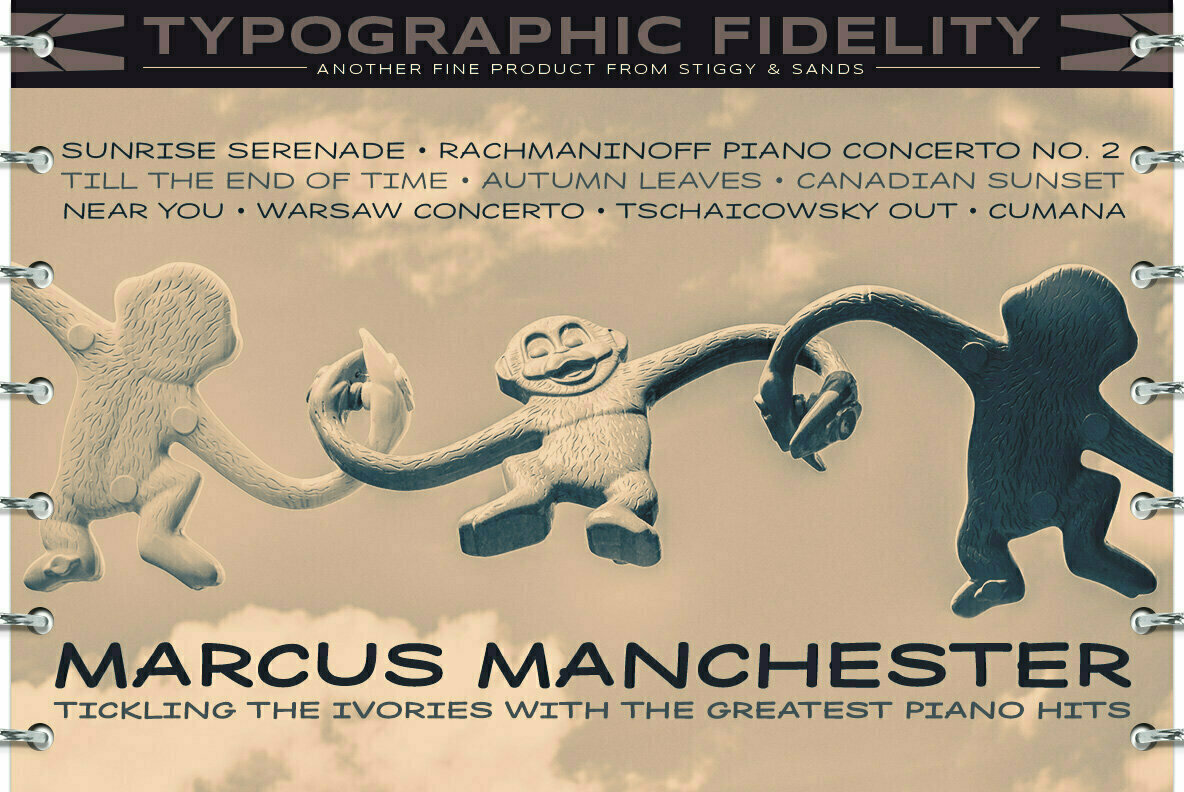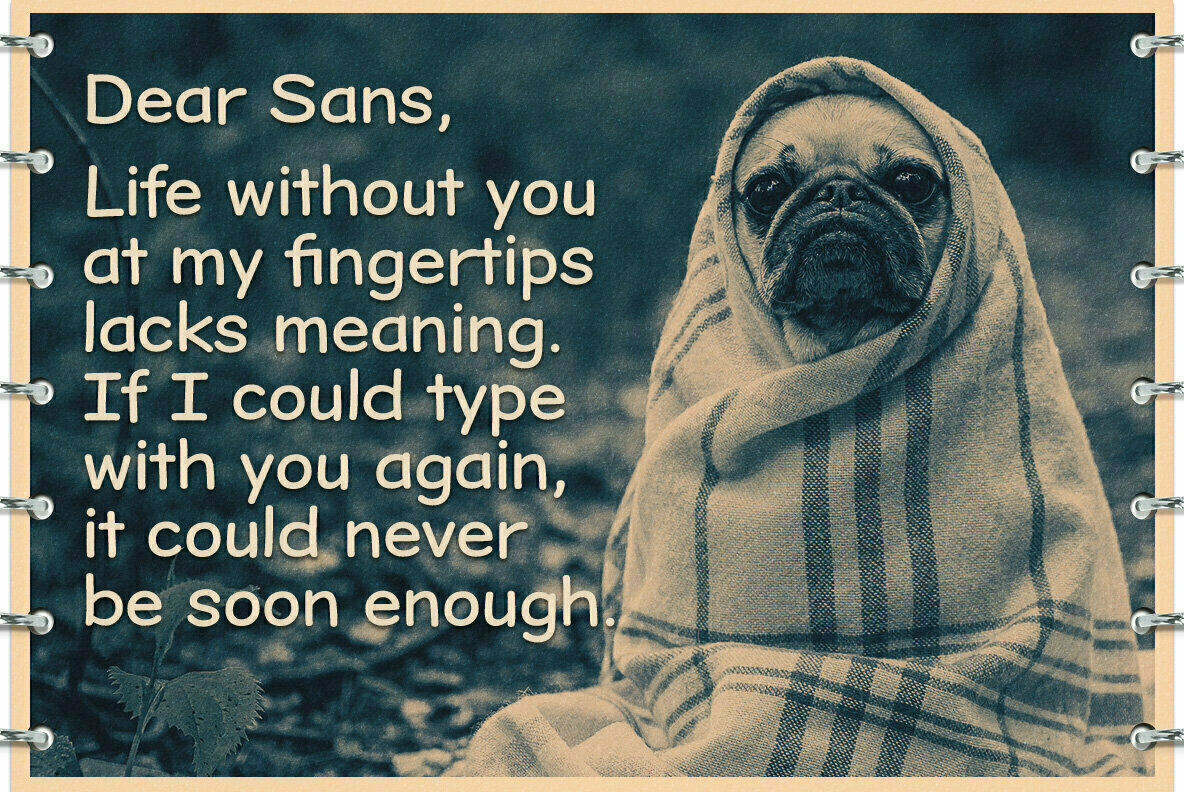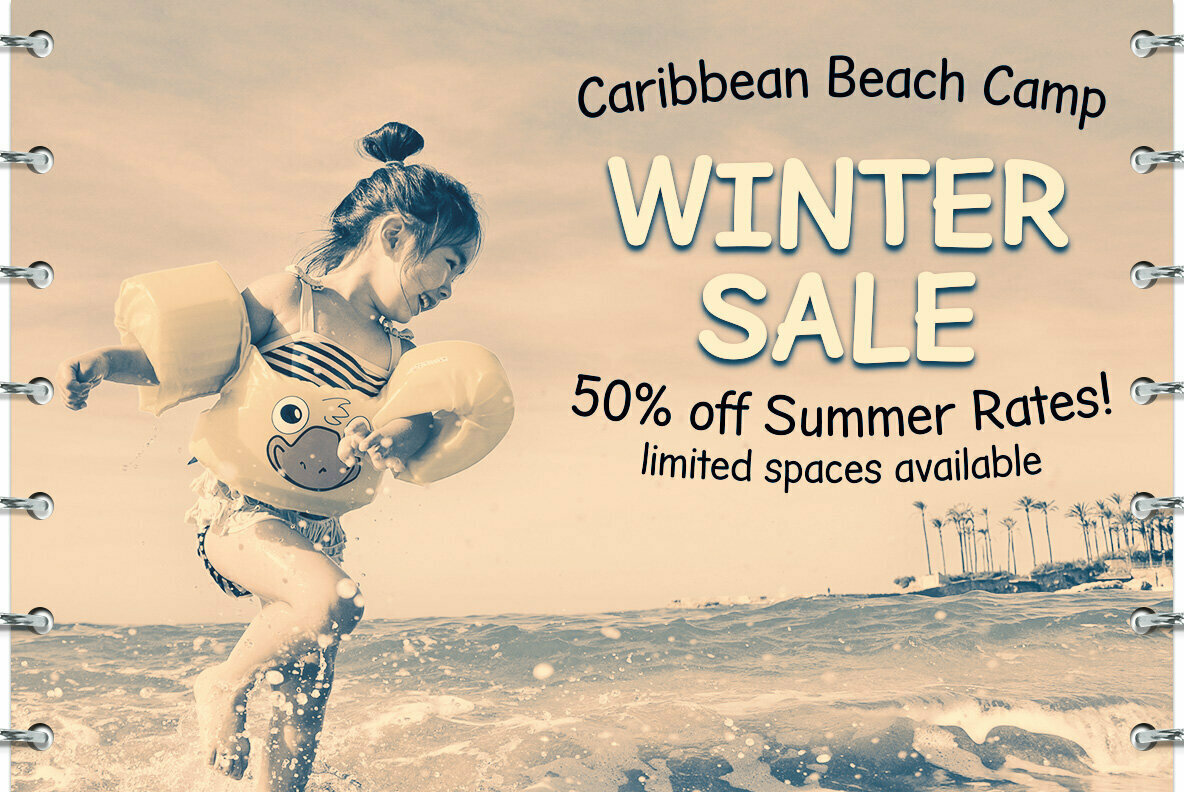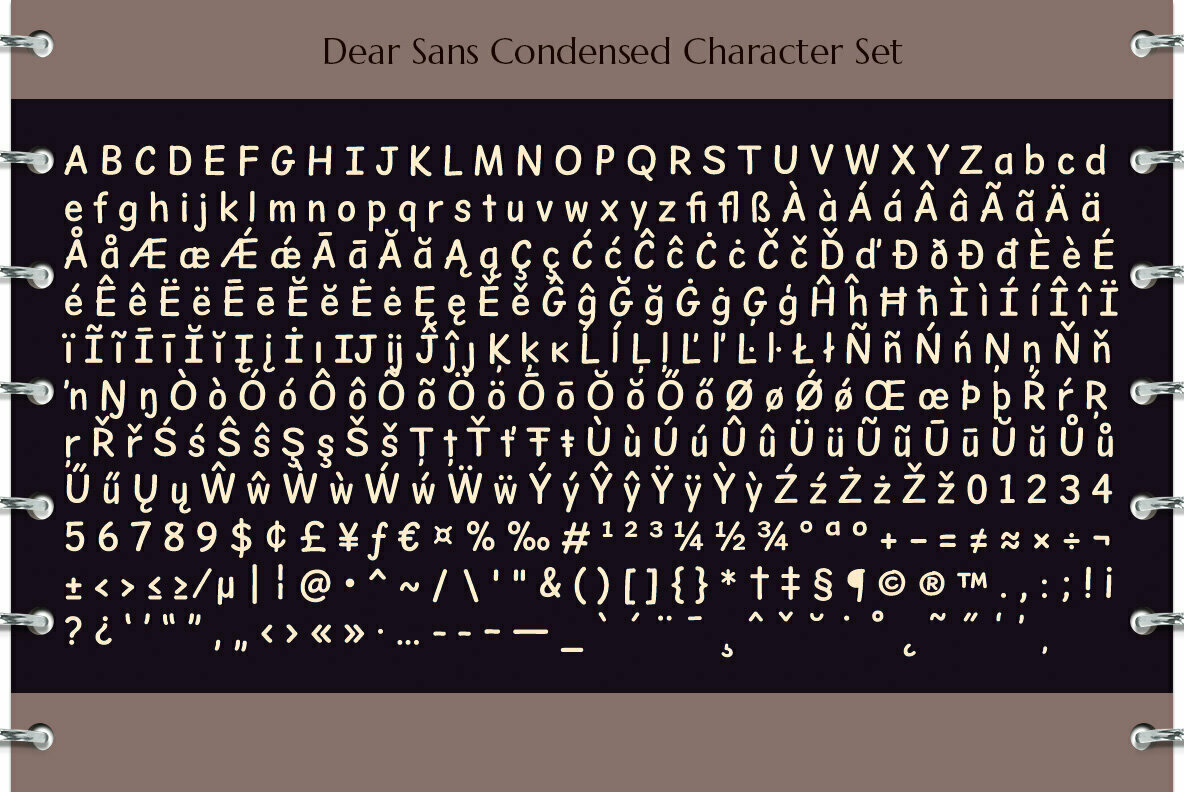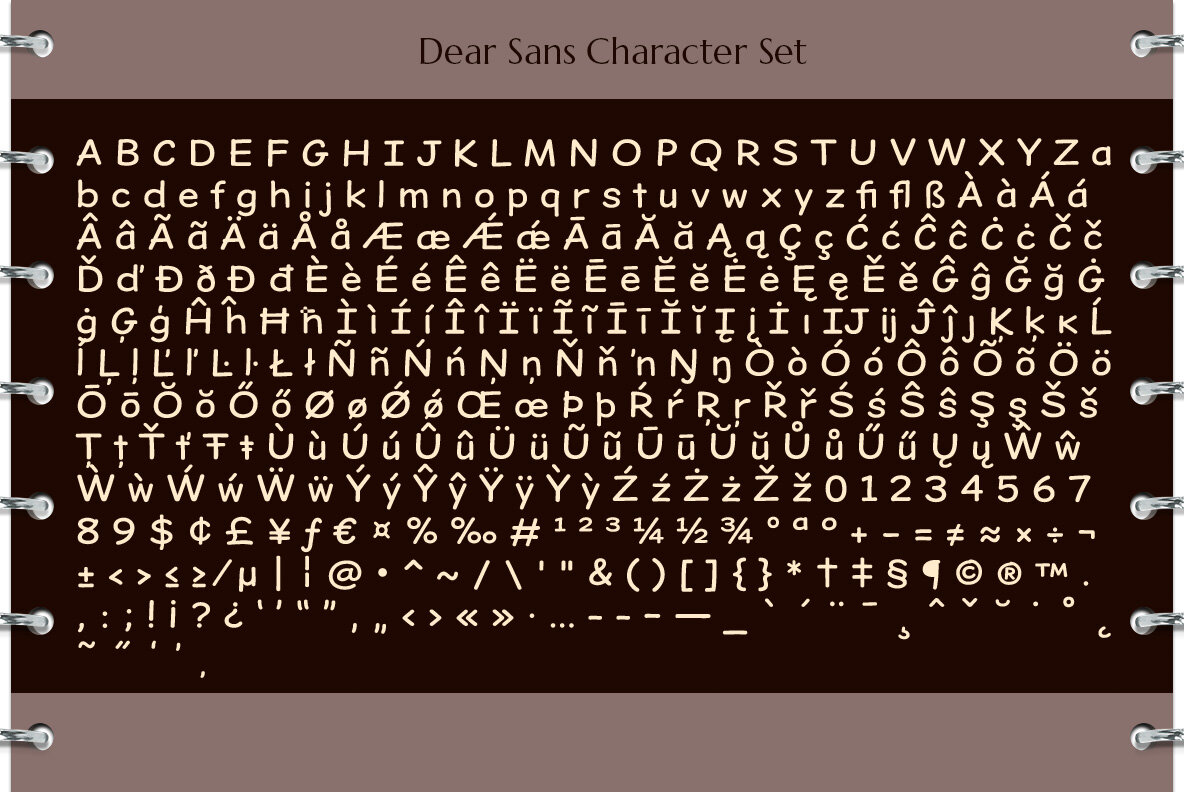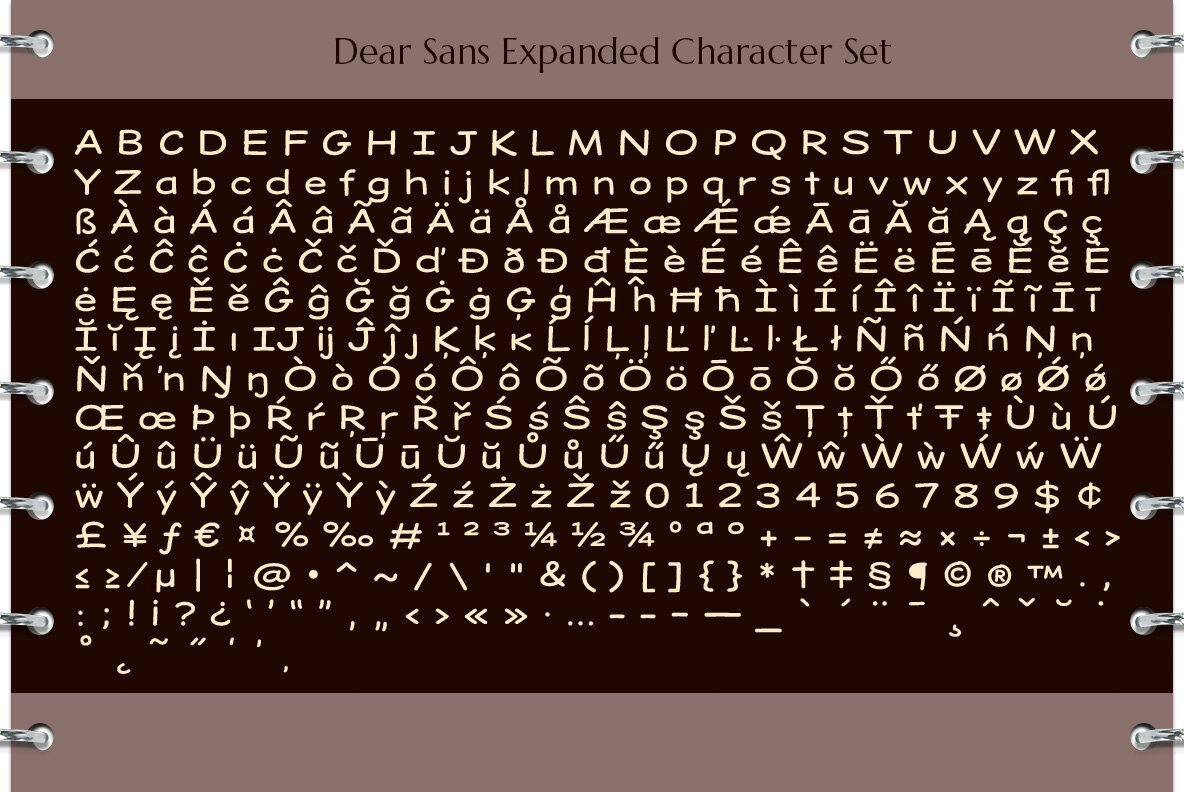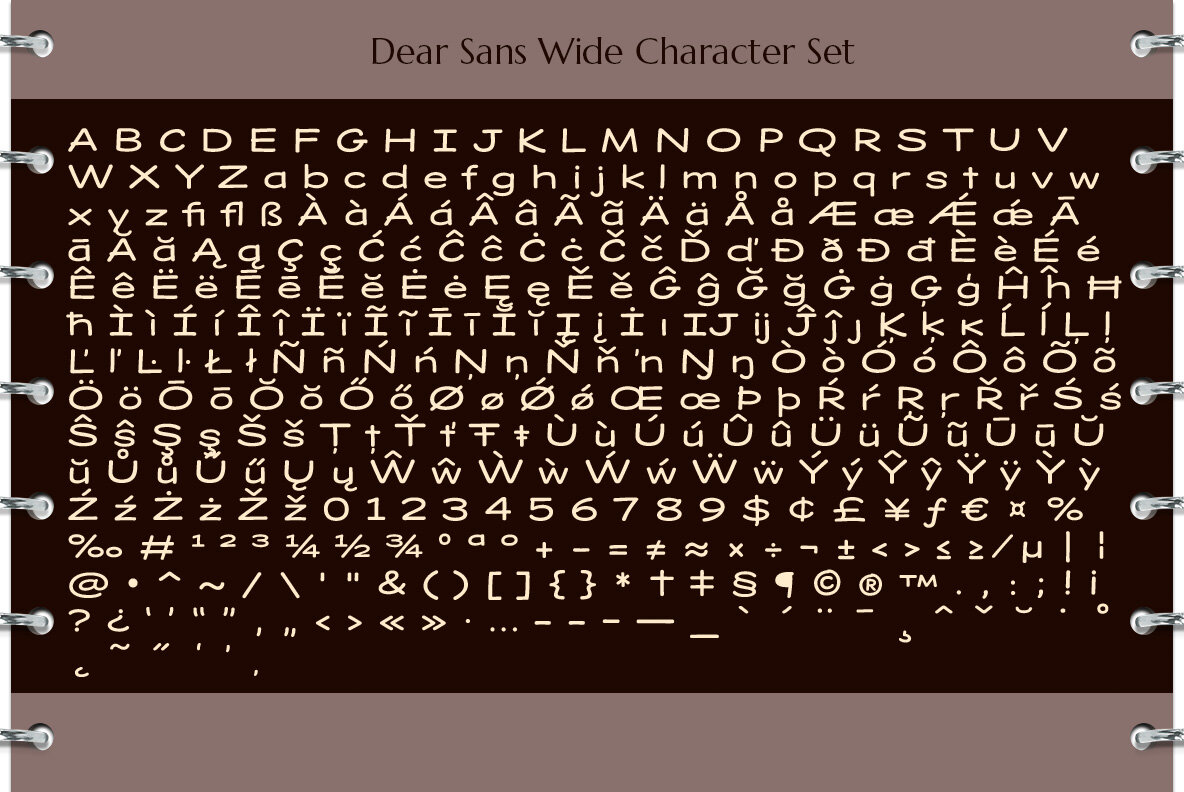
Dear Sans Font
The Dear Sans Collection is comprised of four widths ranging from Condensed, Regular, Expanded, and Wide; each of which are comprised of a three font family of weights: Book, Regular & Bold. Cleanly readable, with just a slight hint of silliness, the Dear Sans Collection brings adds the perfect level of lightheartedness to your designs.
The Dear Sans Collection comes with:
- Approx. 367 Character Glyph Set per font - including standard & punctuation, international language support, and basic “fi fl” ligatures per font.
- 3 Weights per family including: Book, Regular, and Bold.
- Loads of Personality for your designs.
A dynamic collaboration between two font design legends, Brian Bonislawsky (Stiggy) and Jim Lyles (Sands) with a combined 40 years in the font design world bring you a stunning collection of original display typography sure to delight! Ranging from practical sans serifs to luxurious formal and informal casual...